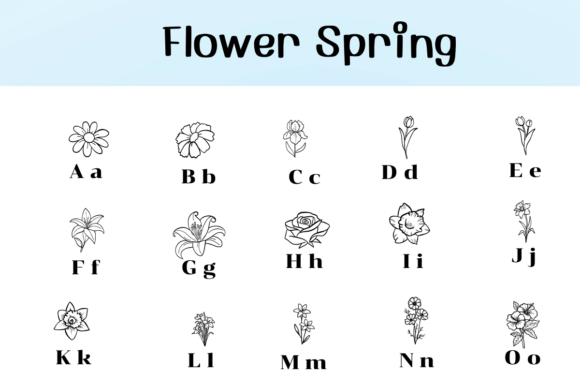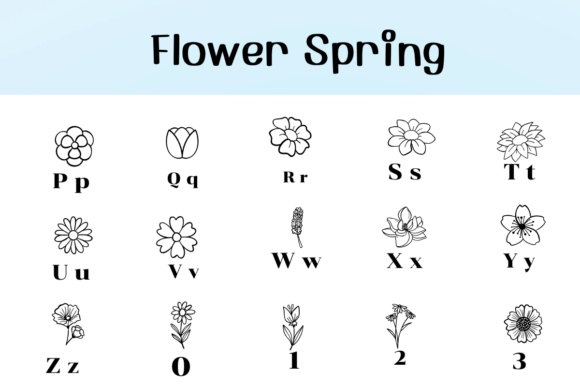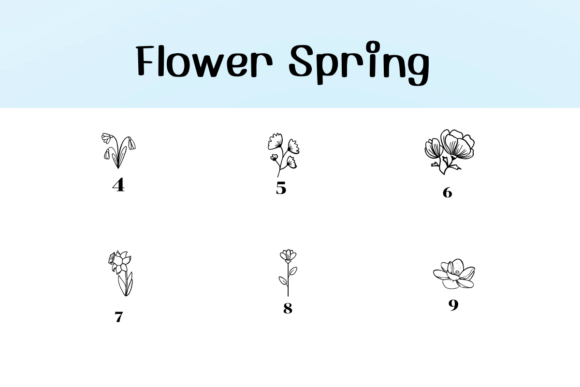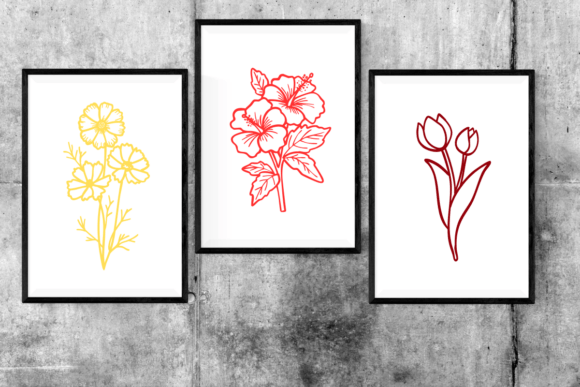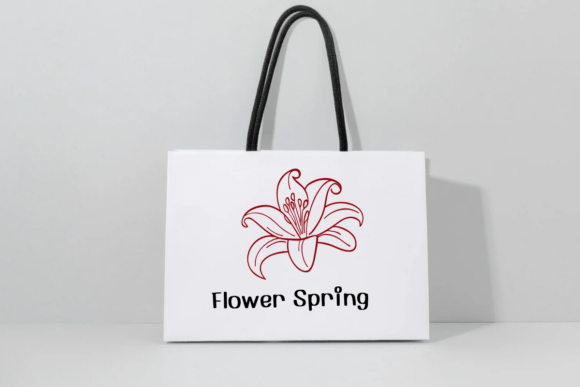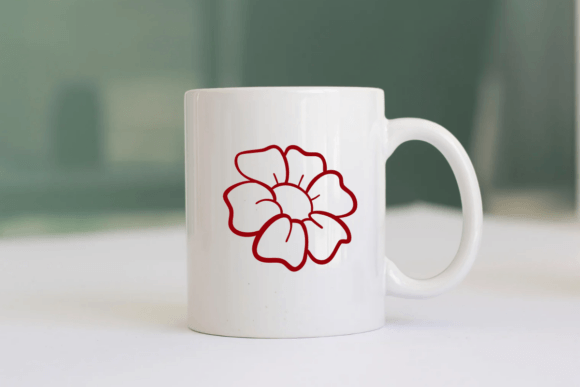
The Blooming Beauty of Flower Spring Font
I’ll never forget the time I was working on a spring-themed project for a client, and I just couldn’t find the right font to match the vibe. I scrolled through page after page of Google Fonts, but nothing seemed quite right. That was until I stumbled upon Flower Spring Font – a delightful dingbat font that instantly transported me to a garden full of colorful blooms. In this article, I’ll share my experience with Flower Spring Font, its features, and how to make the most of it in your designs.
A Personal Review of Flower Spring Font
- ✨ Simple yet elegant flower designs that add a touch of whimsy to any project
- ✅ Clean illustrations of flowers in various shapes and sizes, perfect for creating a cohesive look
- 🌼 A wide range of designs to choose from, ensuring you’ll find the perfect fit for your project
While Flower Spring Font is an excellent choice for adding a floral touch to your projects, there are a few things to keep in mind:
- ⚠️ Limited character set, as it’s a dingbat font, which means you won’t have access to standard letters and numbers
- 🤔 May require some experimentation to find the perfect size and spacing for your design
The Backstory of Flower Spring Font
Flower Spring Font was designed with one goal in mind: to bring a touch of springtime magic to your designs. The creator, a passionate typographer and designer, was inspired by the beauty of flowers and the joy of the spring season. With a keen eye for detail and a love for illustration, they crafted a font that’s both visually stunning and easy to use.
Q: What type of designs can I create with Flower Spring Font?
A: The possibilities are endless! You can create stunning spring-themed posters, invitations, social media graphics, and more. This font is perfect for any project that needs a touch of floral whimsy.